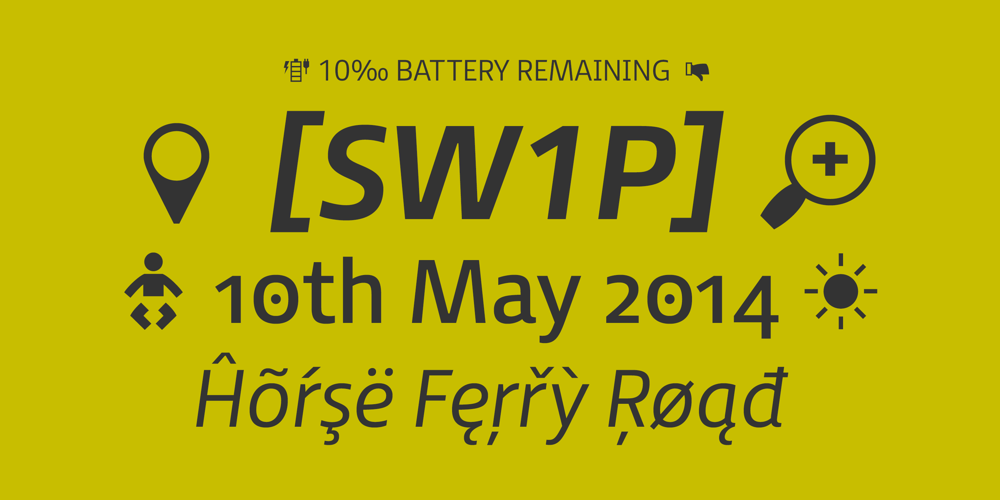
FS Millbank Font Family was designed by Stuart De Rozario and published by Fontsmith. FS Millbank contains 17 styles and family package options. A sign of something betterWhen designer Stuart de Rozario surveyed the fonts used in signage on London’s public transport systems, he reached a dead end. They seemed staid, sterile, lacking in personality, and ill-suited to use by modern brands.He was pointed in another direction entirely. ‘The driving force behind my thoughts was to design something more current and fresh without compromising legibility and clarity. A font with both personality and function, that’s versatile and large and small sizes, and effortless to read, but which also says something new.’Speed readingLate for a meeting and can’t find your way? Trying to catch a flight? Lost in a hospital? Reading signs is a different business to reading a book or a newspaper. Text on signs needs to be deciphered quickly and effortlessly. So the legibility criteria for signage letterforms are different to those for normal reading, too.Throughout FS Millbank’s uppercase and lowercase alphabets, characters have been given features for extra definition, including: wide ink traps on the A, K, M, V, W, X and Y; a serifed i, accentuated spurs on the a, d, l u; and different x-height shapes on the b, g, p and q.Distinctive forms and generous, open internal shapes all help the quick reading of sign text, and wide, open terminals and counters allow similar letter shapes to be distinguished easily when viewed at different angles. Running down a corridor, maybe…Positive/negativeStandard type tends to glow on the kind of dark backgrounds often used for signage, and look heavier than its true weight. To correct the imbalance caused by this optical trick, special weights of the typeface have to be drawn for these ‘negative’, light-on-dark applications.These are lighter than their comparable positive weights to overcome the ‘glow’ effect. After extensive tests of the negative weights, at all sizes, we achieved the right optical balance. Glowing, gone.IconsThis wouldn’t be a signage typeface without its own set of icons, or symbols, to help people find what they’re looking for. So, to sit alongside the positive and negative fonts, we’ve created a comprehensive set of 172 icons, covering a wide range of applications from transport and user interface to information and directional. Designed within the typeface capital height, they sit on the baseline and are spaced centrally.